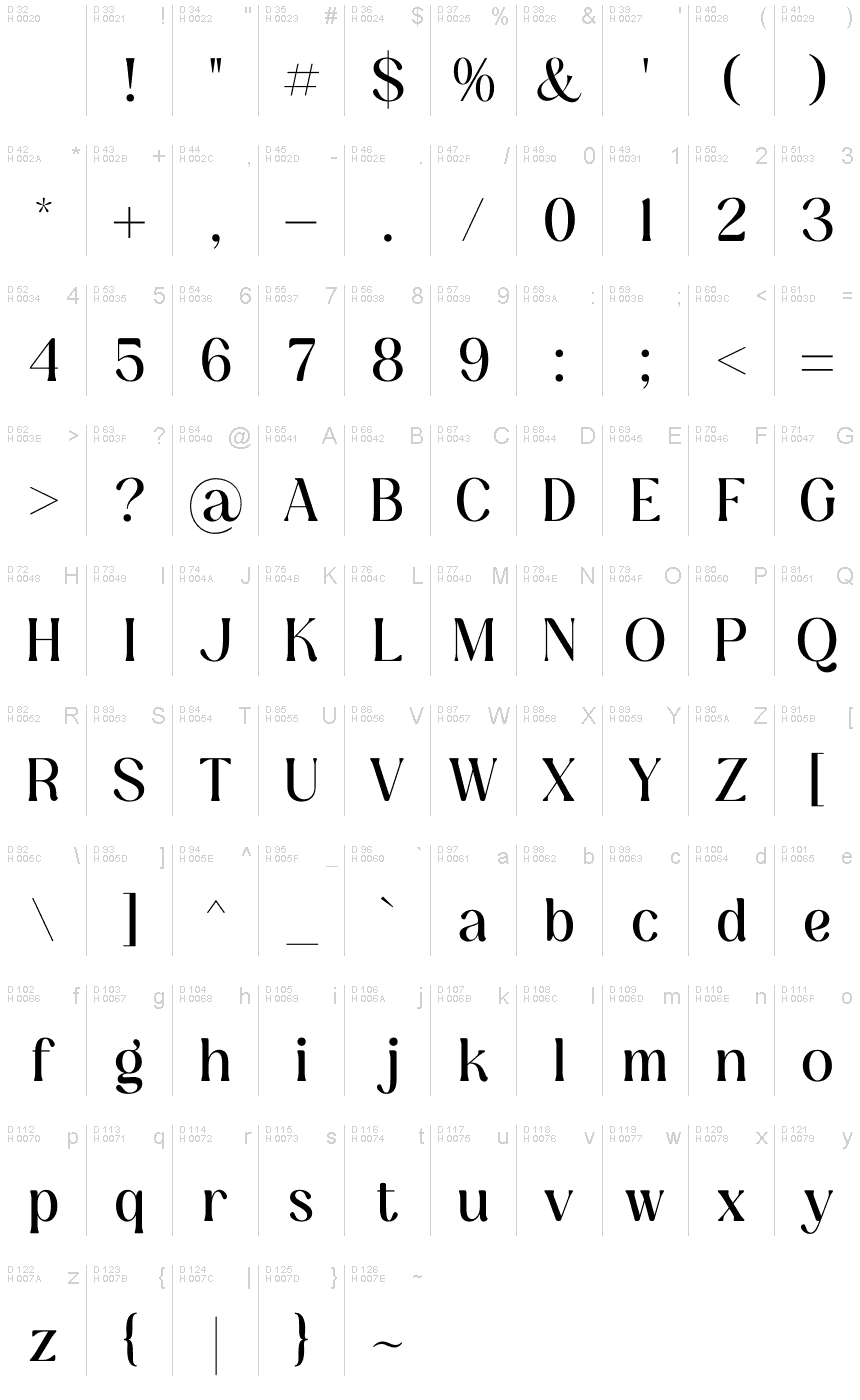
Qakergu
Qakergu, a serif typeface crafted by Storytype Studio, merges classic elegance with modern sophistication. With its crisp serifs and subtle curves, this font carries a timeless allure that commands attention. The distinctive sharp terminals and varied stroke widths give Qakergu an aesthetic edge that is both versatile and expressive.
The font's unique character formation—with particular attention to the creative flourish on the letter 'Q'—exudes a bespoke quality. Each letterform is designed to stand out, making it an excellent choice for branding, editorial work, and any project requiring a touch of class with contemporary flair.
From print to digital media, Qakergu's stylish serifs and balanced proportions ensure readability while enhancing visual interest. Whether used for headings or body text, this typeface promises to infuse your creative endeavors with its distinctive personality and stylistic charm.